Great graphic design is powered by great font selection. But picking great fonts is a challenge most people. Luckily, Canva has made choosing great fonts for your designs much easier. In this tutorial, our team of design experts will cover the best Canva fonts for Instagram.
What are Instagram Fonts?
When choosing fonts for Instagram posts, here are some characteristics to consider:
- Legibility: This is perhaps the most crucial feature of a good Instagram post font. The font must be easily readable at a glance since users often scroll quickly through their feed. Sans-serif fonts are often more legible than serif fonts, especially on smaller screens.
- Consistency: Your font should align with your brandโs aesthetic and be consistent across all posts. Consistency helps build brand recognition and a cohesive look on your Instagram feed.
- Simplicity: Simple fonts are often the best choice for Instagram posts. Intricate or overly decorative fonts can be difficult to read and may not scale well on smaller screens.
- Size: Be mindful of font size. It needs to be large enough to be readable on a small phone screen, but not so large that it overwhelms the design.
- Weight: Depending on the background of your post, you might need a heavier or lighter font. Light fonts can get lost on a light background, and the same goes for heavy fonts on a dark background.
- Versatility: Choose fonts that work well in a variety of situations. A font might look great in a headline, but not so much in a body of text. Versatile fonts can be used in multiple contexts.
- Emotion: Different fonts convey different moods and emotions. Script fonts can feel elegant and formal, while bold, blocky fonts can feel assertive and strong. Consider what emotion you want your post to evoke when choosing a font.
- Contrast: If you are using multiple fonts in one post, they should contrast well with each other to make the design more interesting and dynamic, while still maintaining harmony.
Best Instagram Fonts in Canva
1. Beach Resort
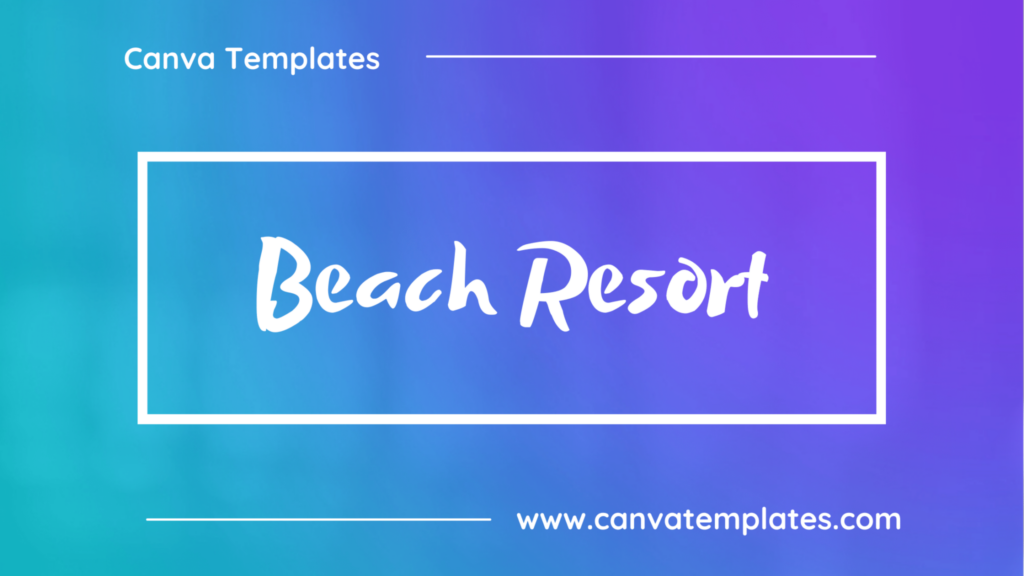
Beach Resort is a playful and relaxed font thatโs perfect for conveying a fun and carefree vibe. It features rounded edges and a slightly irregular style that gives it a handmade feel.
2. Giaza
Giaza Serif Typeface is an elegant Didone typeface, most suitable as a Display font, the main focus was to include as many indulgent aspects as possible, and really make use of its high-contrast aesthetic. With smooth curves and subtle indentations, itโs a very Fashion-conscious typeface.
3. Obra Letra
Obra Letra is a display font with a retro, vintage style. It has a bold, uppercase-only design with thick strokes and serifs that create a sense of nostalgia and old-school charm.
4. Rogue
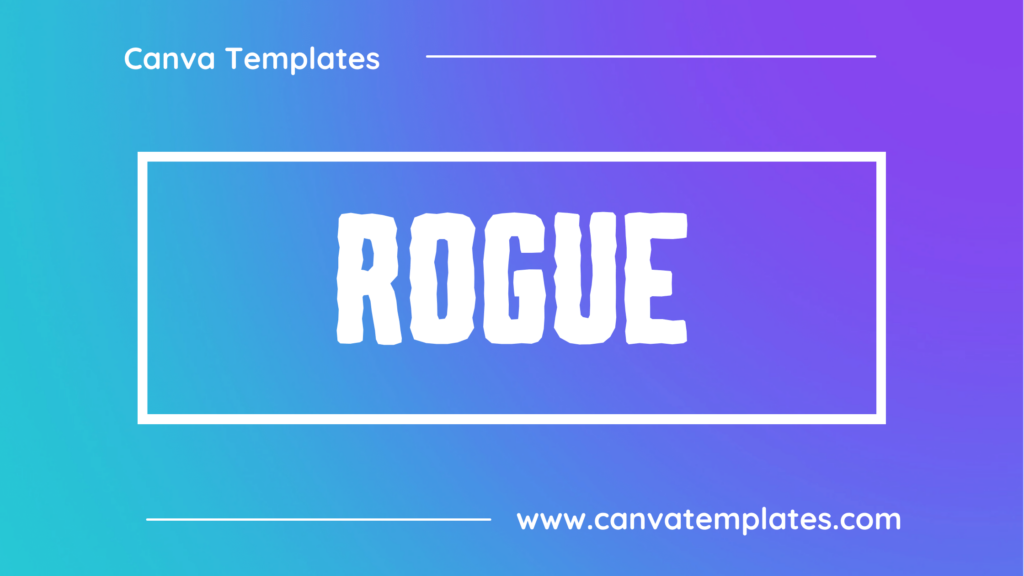
Rogue is a bold and aggressive display font characterized by its sharp, pointed edges and angular design. This daring and rebellious typeface is suitable for projects that require a strong, edgy feel, such as logos, apparel, or posters.
5. Waterlily
Waterlily is a calligraphy-style font thatโs feminine and delicate, with thin, flowing lines and elegant curves. Itโs ideal for creating romantic or whimsical designs, and adds a touch of sophistication to any project.
6. Prague
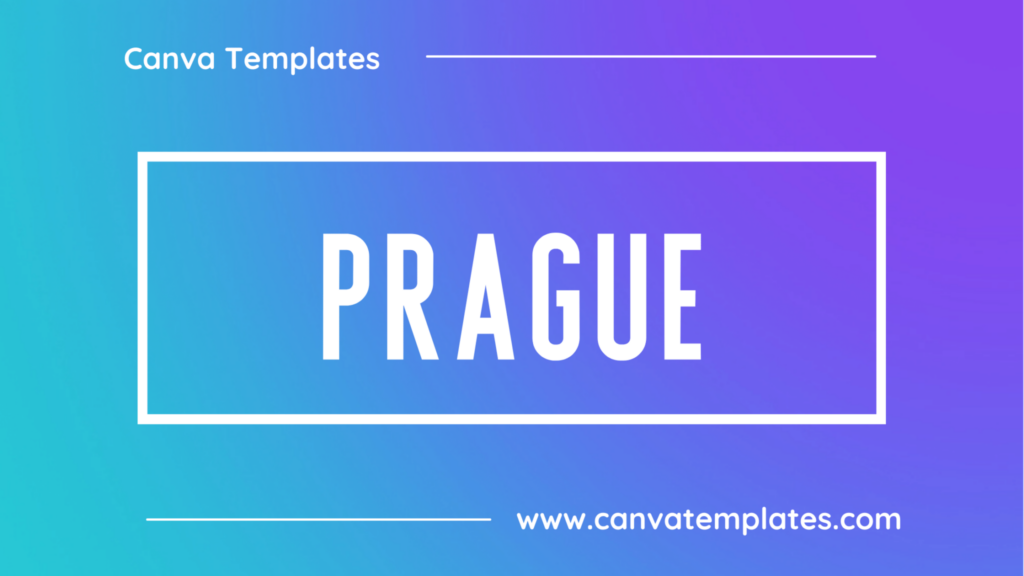
Prague is an elegant, decorative serif font that features intricate details and ornate embellishments. Its sophisticated and romantic appearance makes it ideal for wedding invitations, packaging, or branding.
7. Sweet Dreams
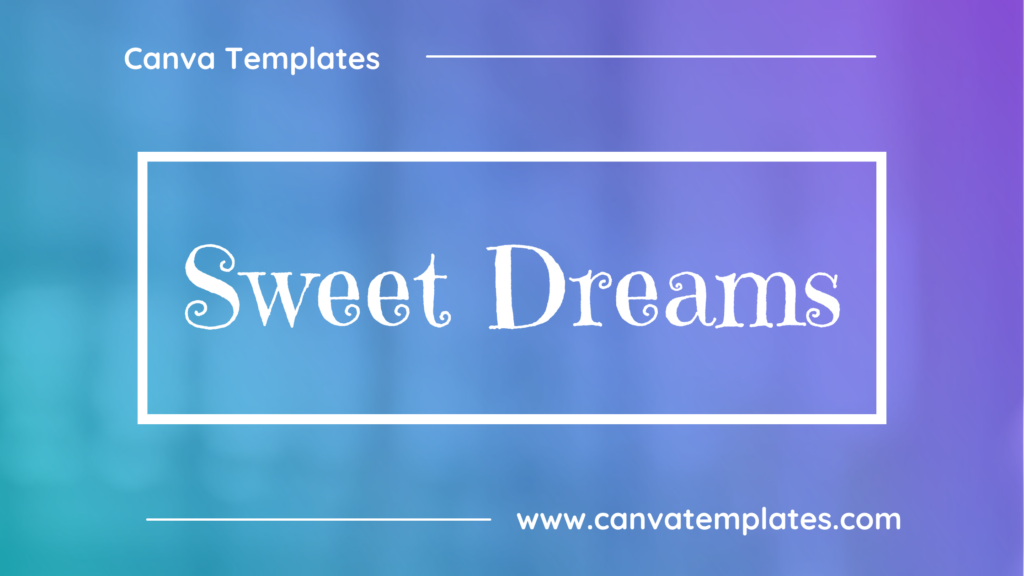
Sweet Dreams is a script typeface, featuring soft, flowing curves. Sweet Dreams has a feminine and dreamy quality, perfect for creative or romantic designs.
8. Permanent Marker
Permanent Marker is a handwriting-style font with a bold weight and a casual appearance, resembling a marker or pen stroke. Its informal and playful feel makes it a great choice for designs that require a personal or friendly touch.
9. Lovelace
Lovelace Text is a playful, hand-drawn font with a whimsical feel, resembling handwritten notes.
10. Dream Avenue
Dream Avenue is a delicate, script font with elegant, flowing curves and a romantic, dreamy feel.